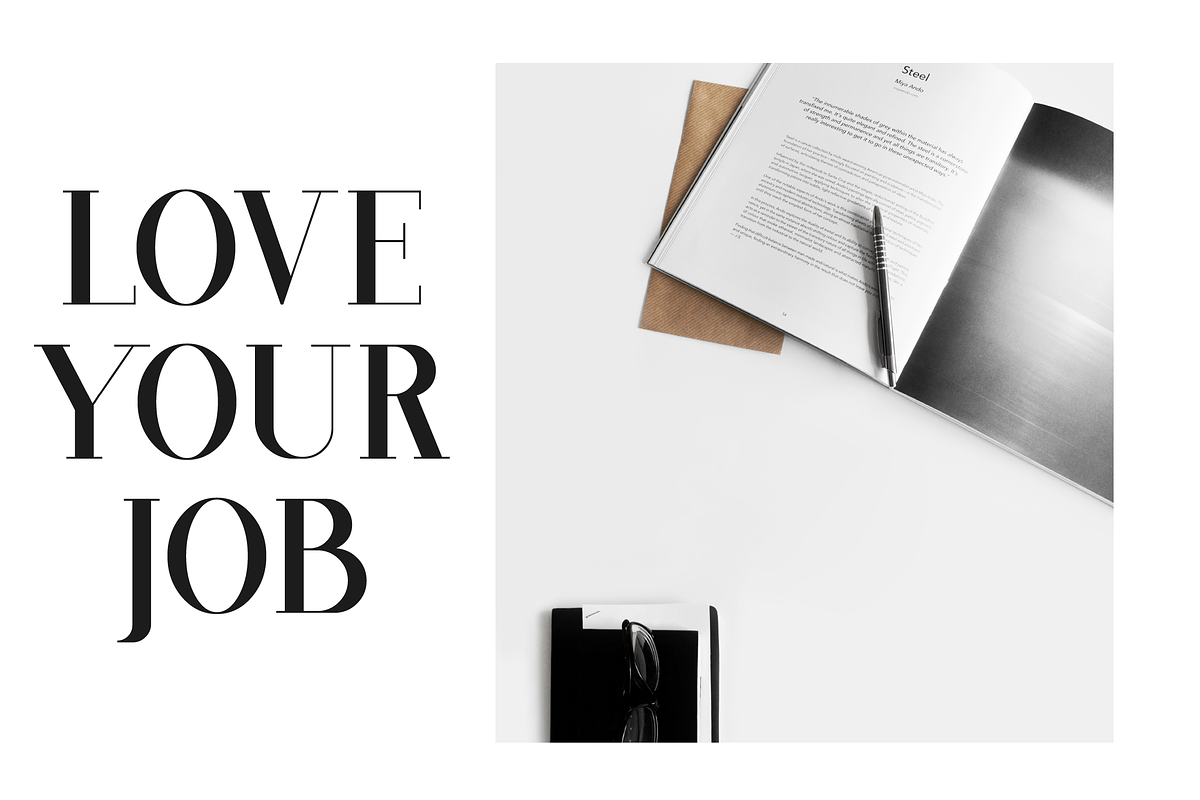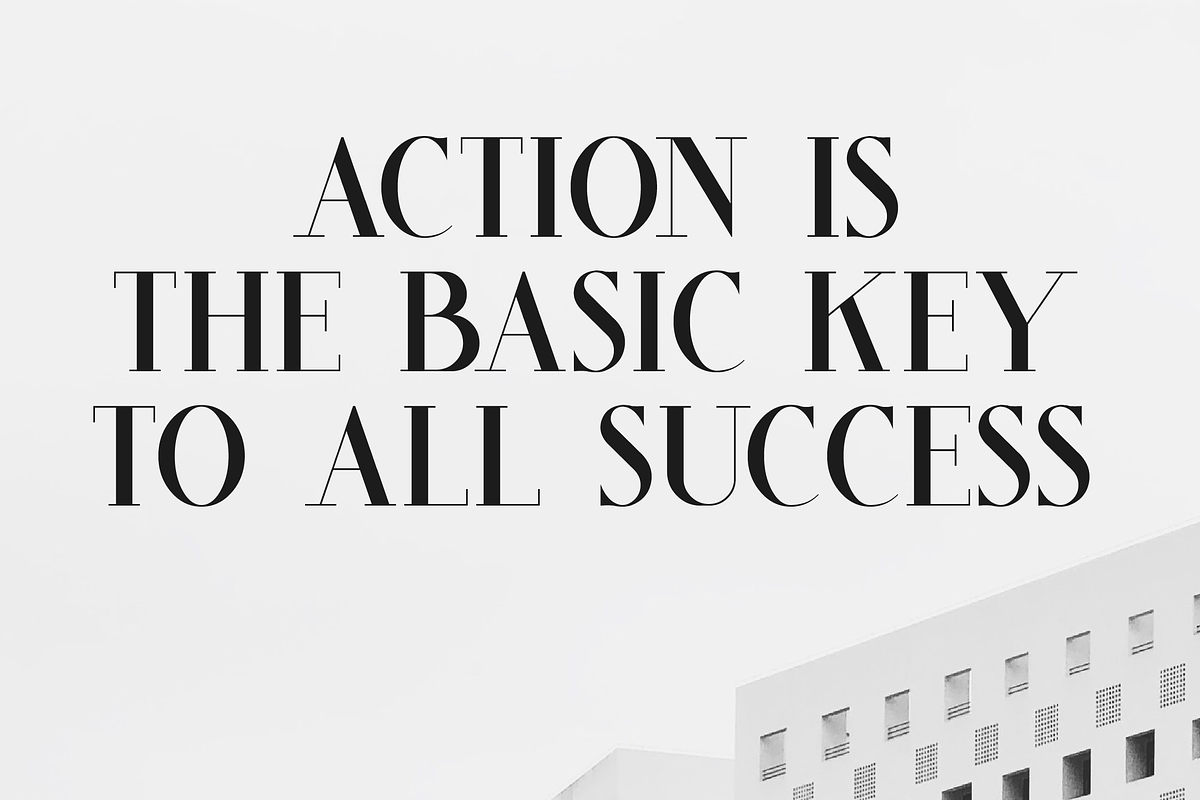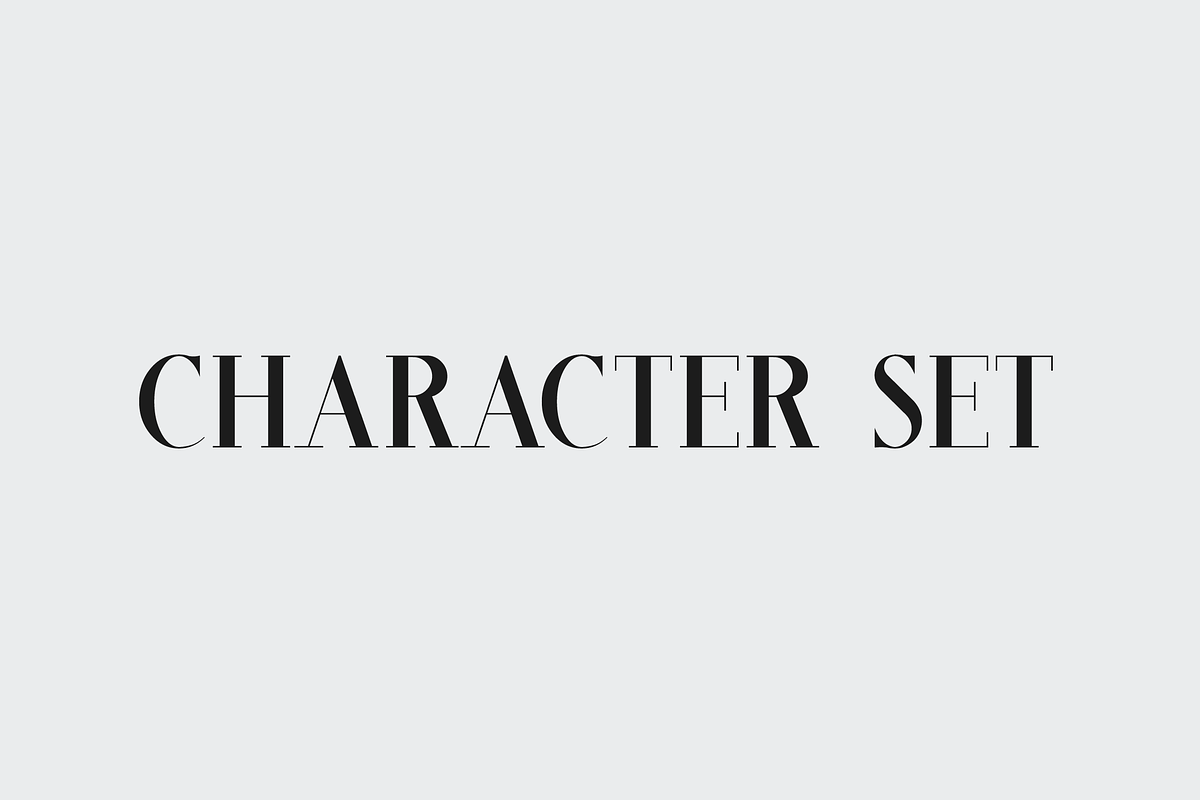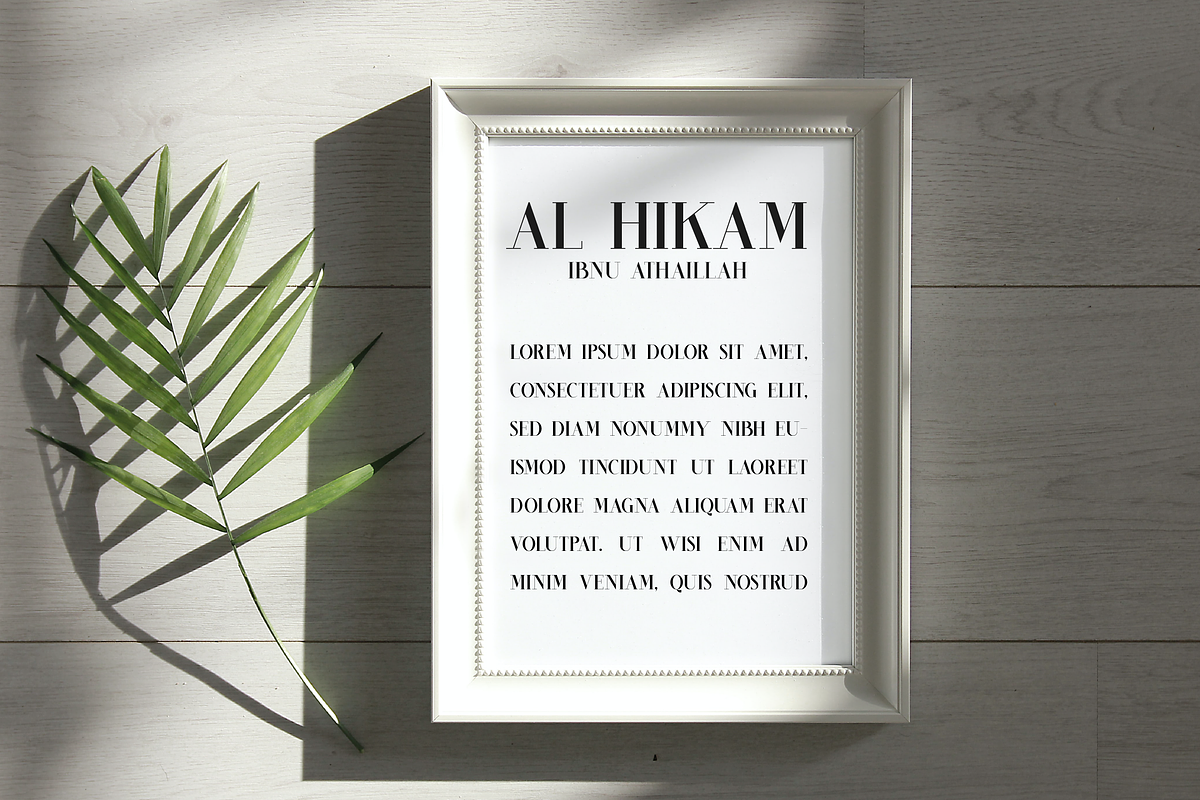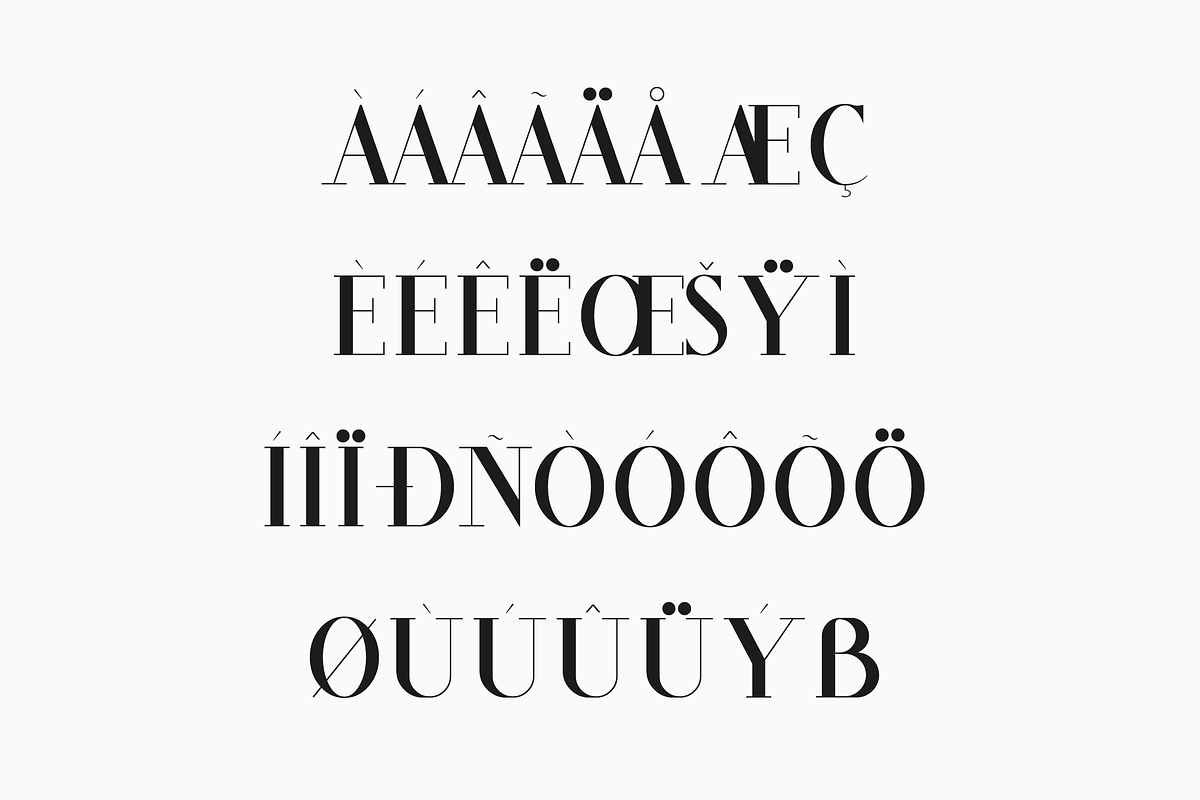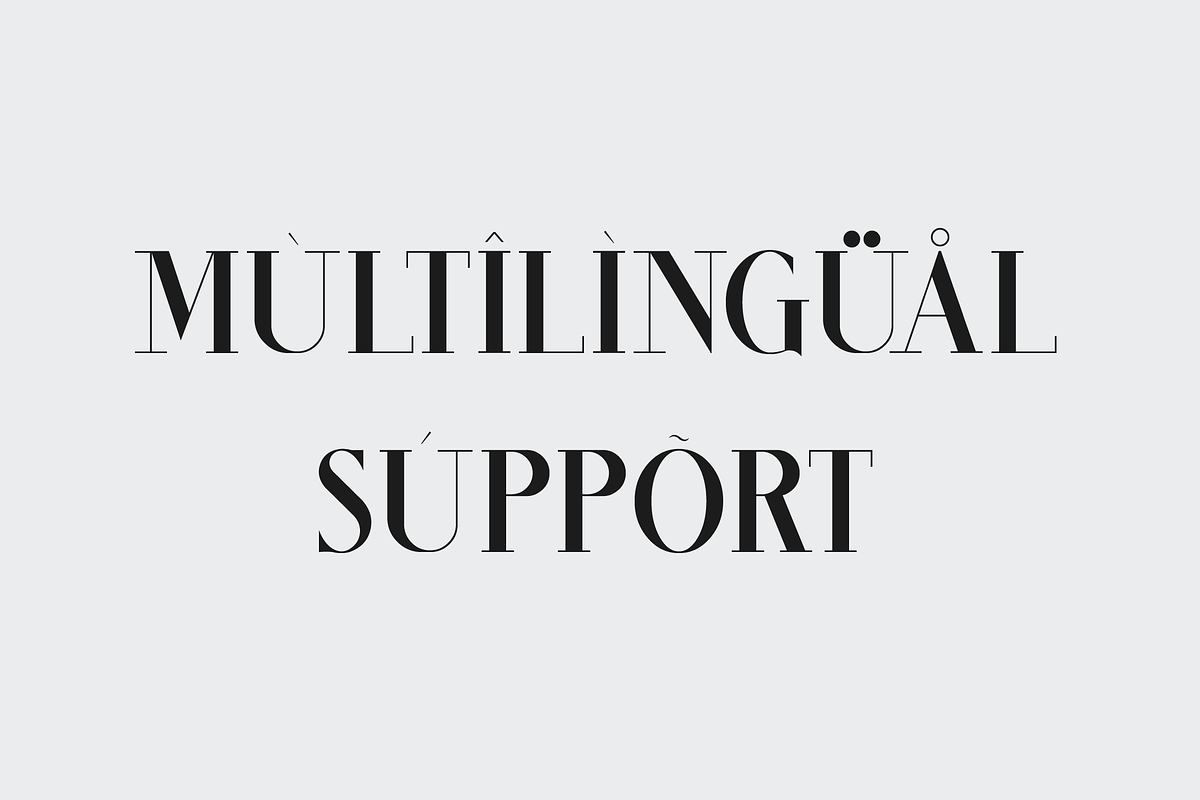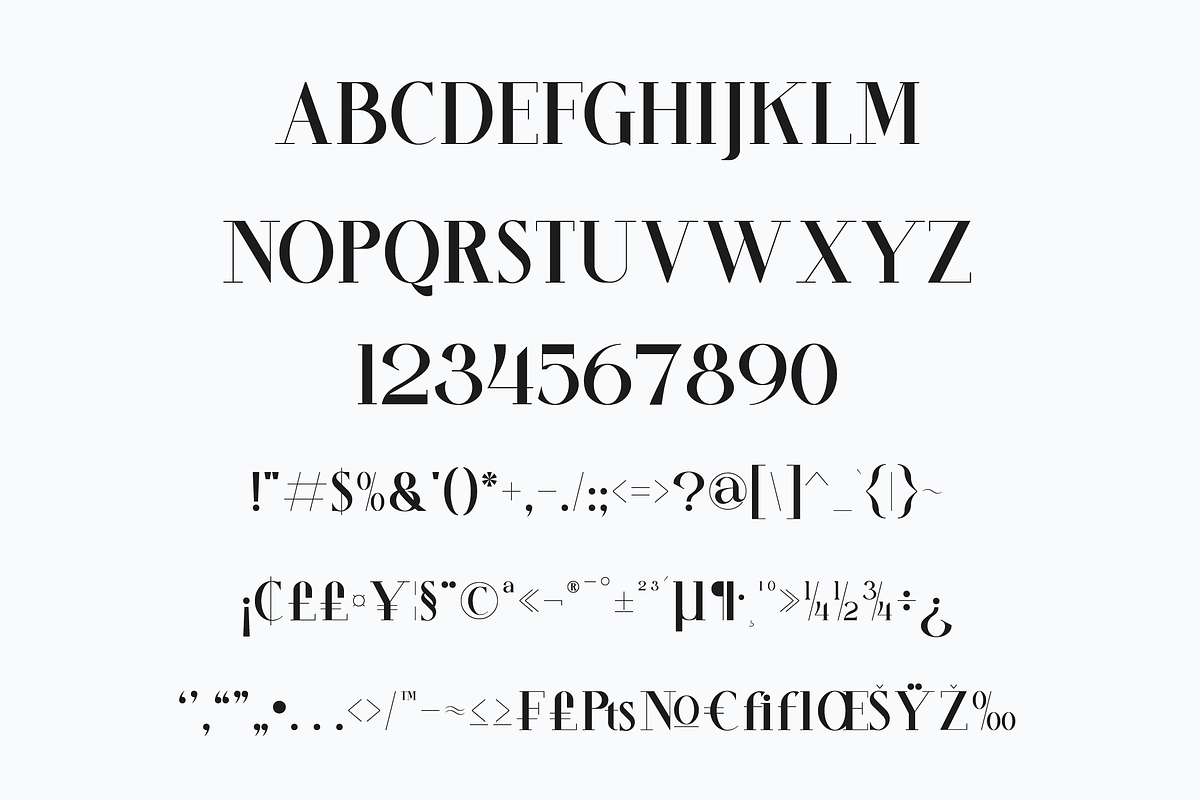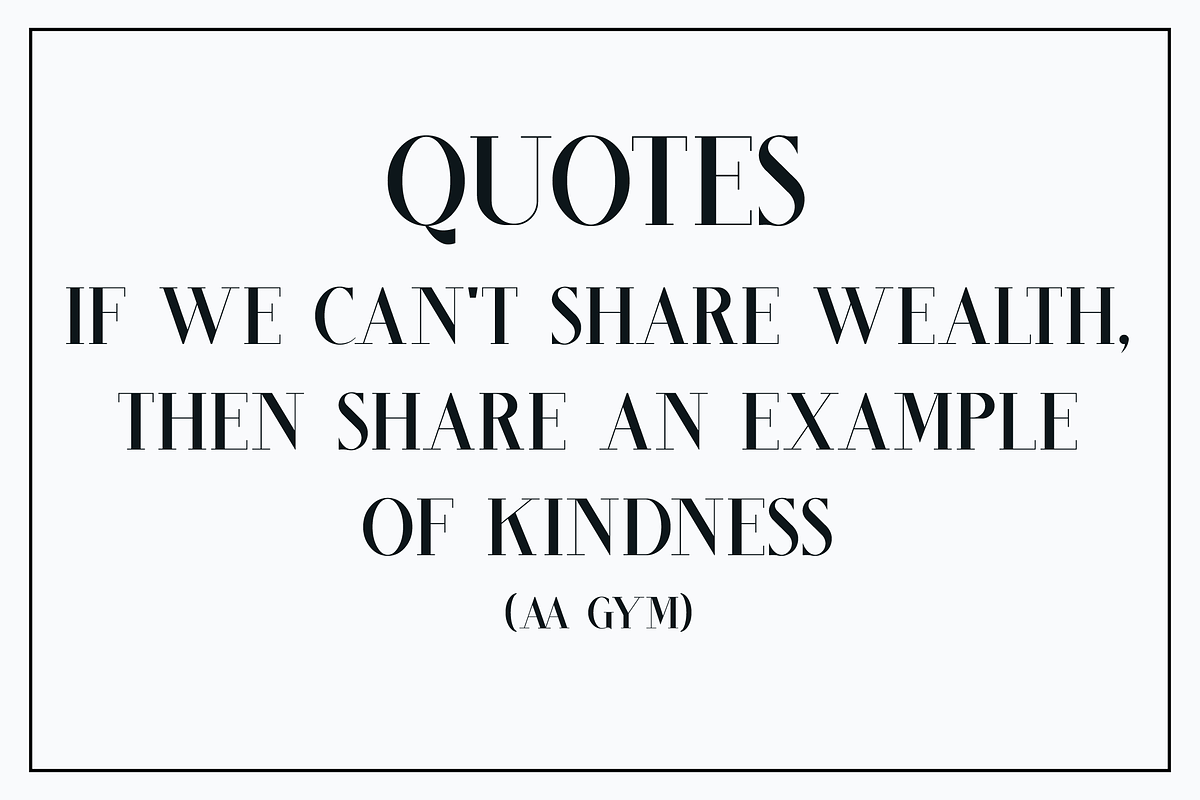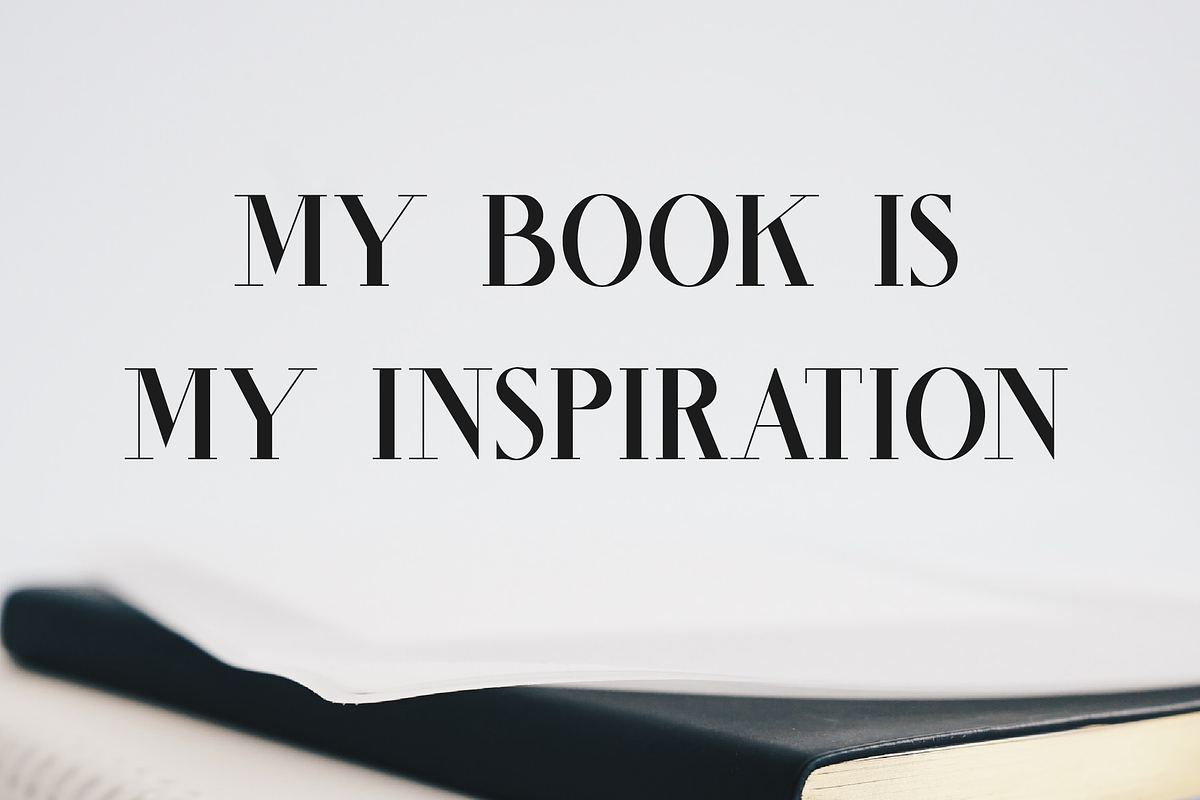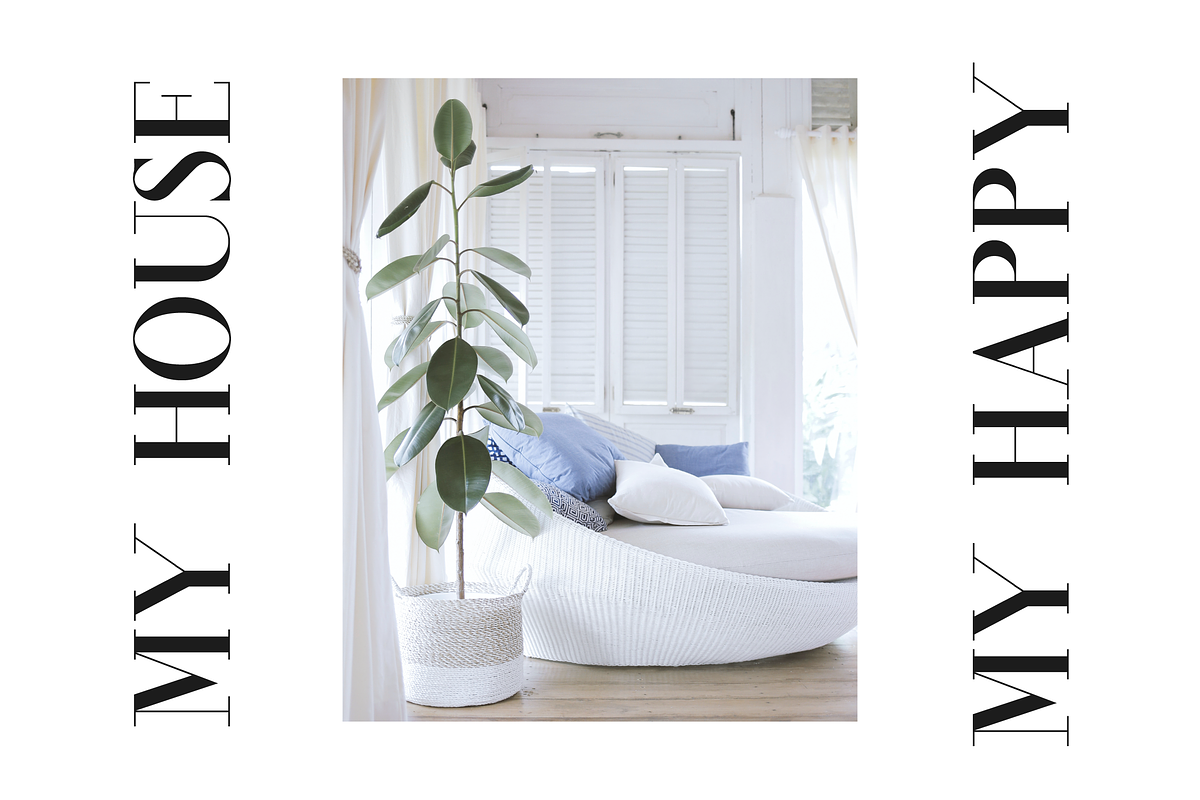
Cintary Modern Serif Font
We are proud to present the Cintary Modern Serif Font, created by Maryamtype Studio, a serif typeface that has a unique modern style & look. This typeface is perfect for elegant & luxurious logos, book or movie title designs, fashion brands, magazines, clothing, fonts, quotes and more.